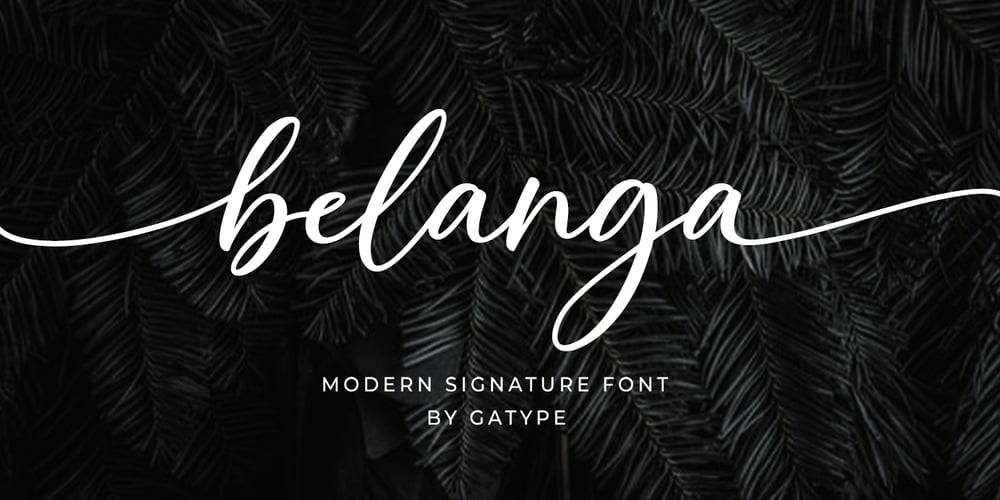
Belanga Font Family was designed by khaidir and published by Gatype. Belanga contains 1 styles and family package options. Balanga is a smooth, elegant and flowing handwritten font. It has a beautifully balanced character, goes well with many designs. Balanga features varied baselines, smooth lines, beautiful glyphs, and stunning alternatives. Hand-drawn design elements allow you to create many beautiful typographic designs in an instant such as branding, web and editorial designs, prints, crafts, quotes, It’s great for logo types, wedding invitations, romantic cards, labels, packaging, name spelling and other . Add to your most creative ideas and see how they make it happen! Balanga includes OpenType style alternatives, ligatures, and International support for most Western Languages. To enable the OpenType Stylistic alternative, you need a supporting program such as Adobe Illustrator CS, Adobe Indesign & CorelDraw X6-X7, Microsoft Word 2010 or a later version.Balanga is coded with PUA Unicode, which allows full access to all additional characters without having to design special software. Mac users can use Font Book , and Windows users can use Character Map to view and copy any additional characters to paste into your favorite text editor/application.